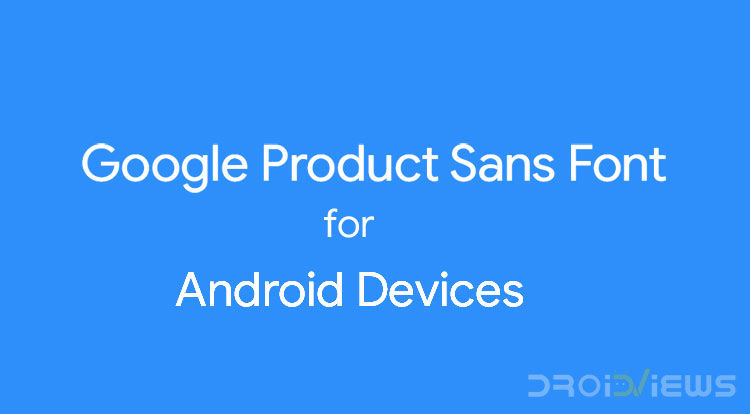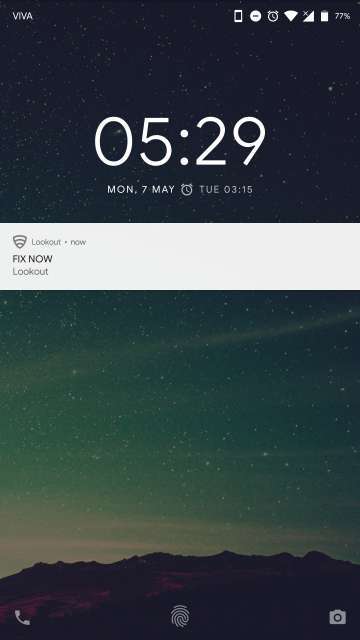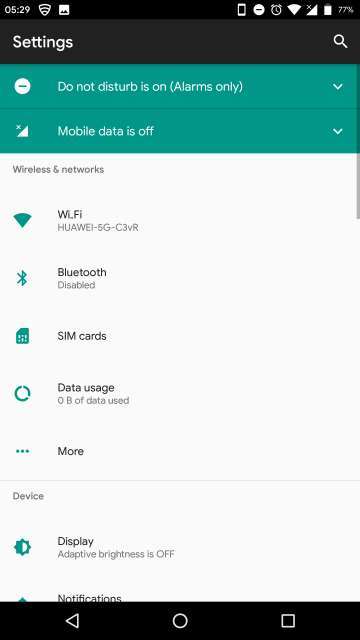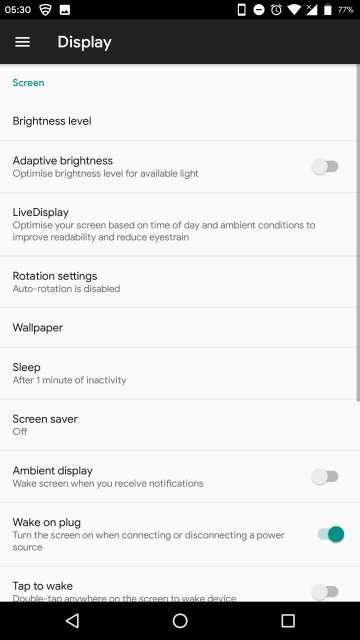
Google introduced a brand new font called Google font for its Pixel 2 series of devices with the introduction of Android 8.1 Oreo. Tired of the good old Roboto font Google has been using ever since the debut of ICS and do you want to try out the fonts on your device? Download the Google font Sans font zip file from below and install on your Android as we instructed.
Roboto Vs Google Sans Font – Screenshots
Below are some screenshots showing the difference between the older Roboto and the new Google Sans font on Android devices.
My thoughts and conclusion
All in all, I would like to say that the Google Sans font looks and feels fresh and modern compared to the Roboto font the search giant has been using since of Android 4.0 Ice Cream Sandwich. The font goes well with Google’s new design language for its software and hardware.